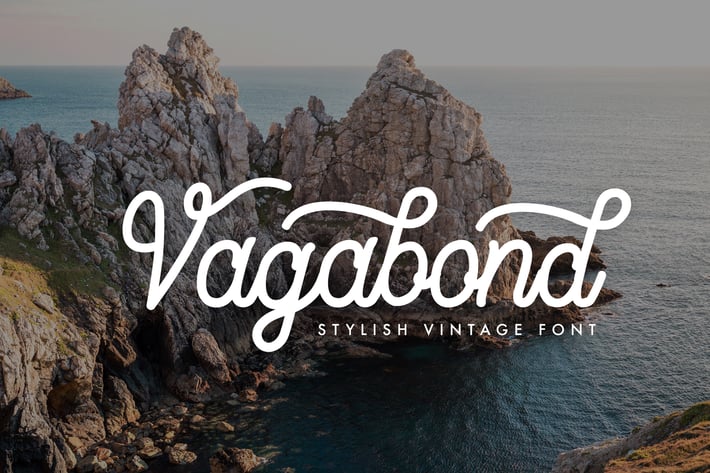
Vagabond - Handmade Font
We Provide You one of the best Vintage & Retro Hand Written Script. Best match for logos, header, Titles, Prints & other Creative process possibilities.
Create a Extraordinary Typography / lettering results by using Vagabond - Handmade Fonts
+ Clean Results